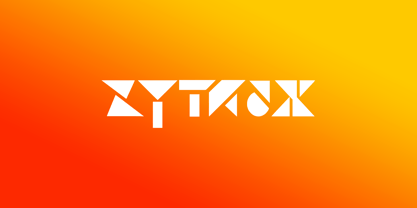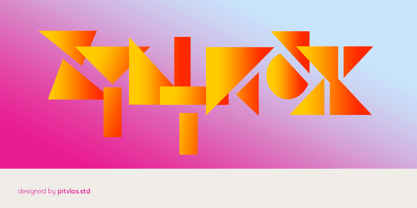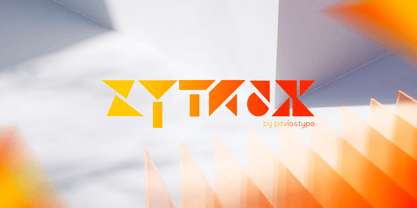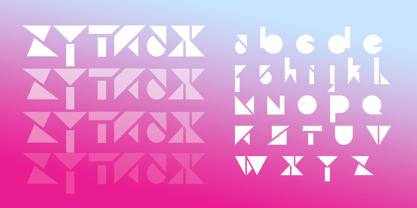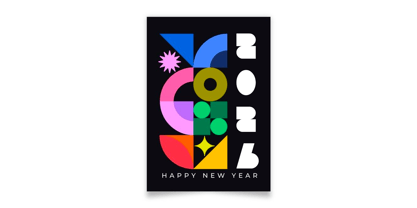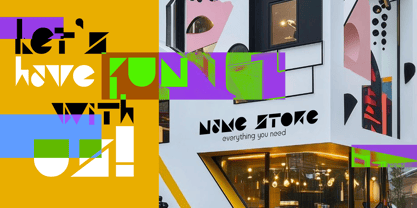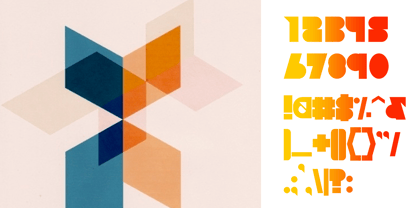
Zyntrax
von Pitvlas Type
Die Schriftfamilie Zyntrax wurde von Yoga Dwi Cahyono entworfen und von Pitvlas Type veröffentlicht. Zyntrax enthält 2 Stile und Familienpaketoptionen. Mehr über diese Familie
Zyntrax is a futuristic geometric display typeface designed to push boundaries and evoke a sense of digital innovation. Built with bold shapes, sharp angles, and modular construction, Zyntrax delivers a striking and high-tech aesthetic that's perfect for sci-fi themes, tech branding, gaming titles, music festival posters, and experimental design projects. The dynamic structure and gradient color palette reinforce its avant-garde personality, making it ideal for creators who want to stand out and communicate bold, forward-thinking ideas.
Designer: Yoga Dwi Cahyono
Foundry: Pitvlas Type